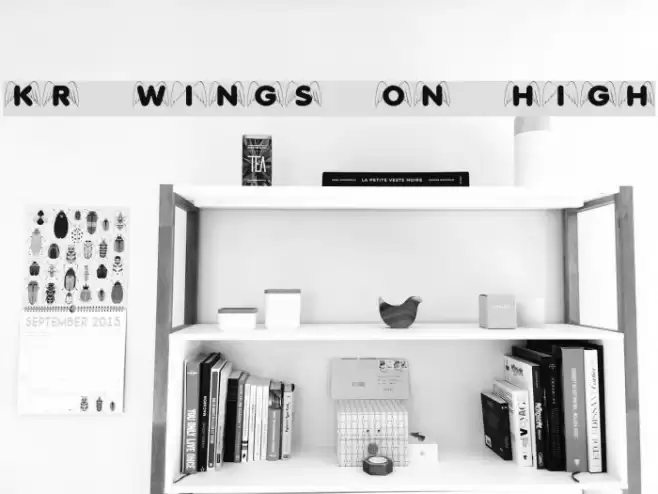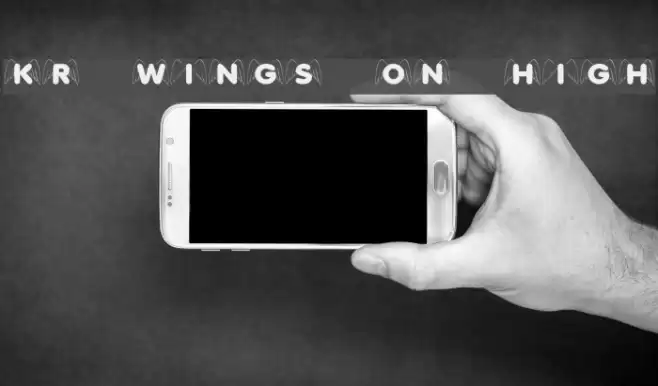
KR Wings On High Font
KR Wings On High Description
This decorative font features a unique design where each letter is adorned with intricate wing-like embellishments. The bold, uppercase characters are stylized with a modern flair, creating a striking visual impact. The wings add an element of fantasy and elegance, making the font suitable for creative and artistic projects. The overall appearance is both whimsical and sophisticated, with a strong emphasis on visual aesthetics. The characters are evenly spaced, ensuring readability while maintaining the decorative elements.
A decorative font with bold letters and intricate wing embellishments from Uncategorized fonts.
- Proposed Projects: Ideal for fantasy-themed designs, book covers, posters, and branding that requires a touch of elegance and creativity.